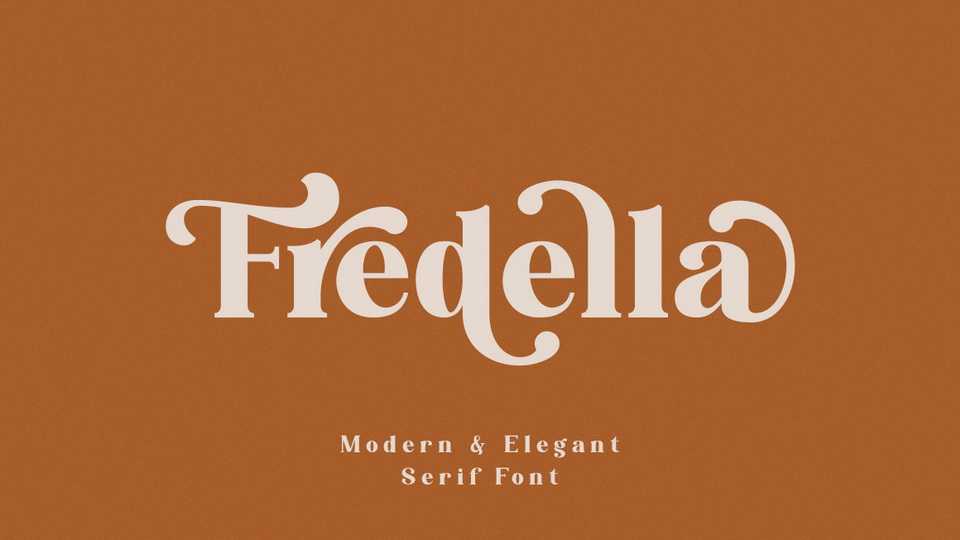
Download Fredella font, a classic and elegant serif typeface. Fredella features great decorative alternates and swashes, that will make your designs standout.